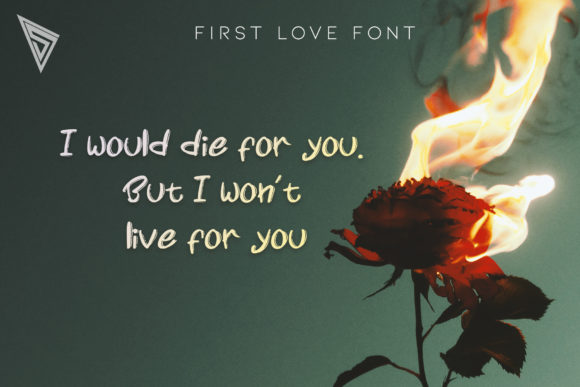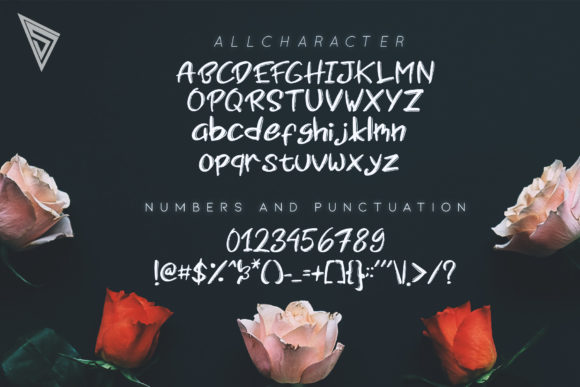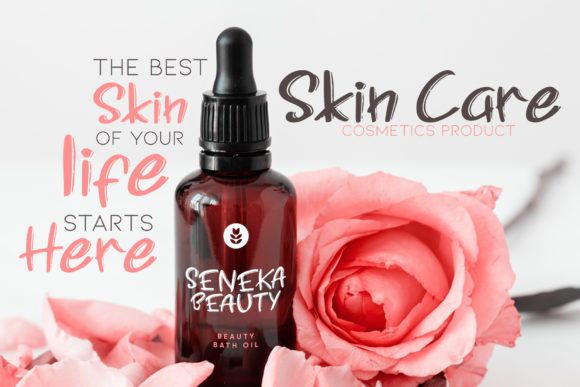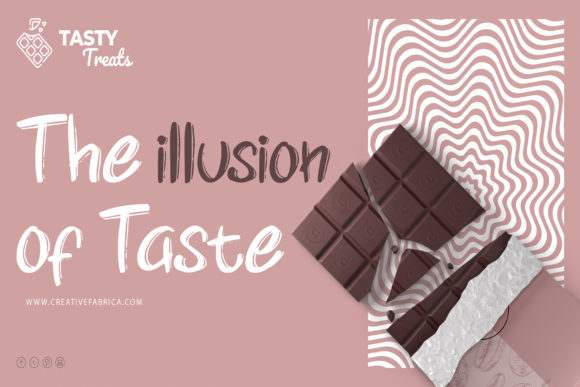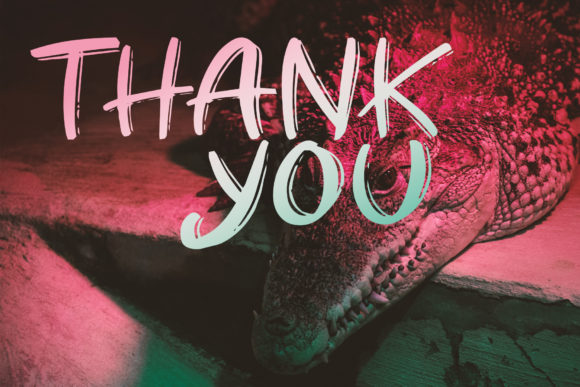
First Love Font
About First Love Font
First Love is a casual and simple lettered handwritten font. It can easily be matched to an incredibly large set of projects, so add it to your creative ideas and notice how it makes them stand out!